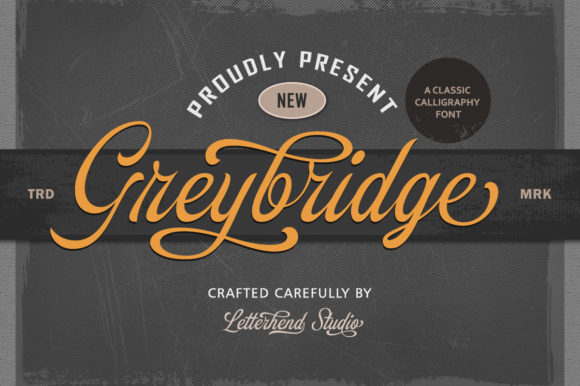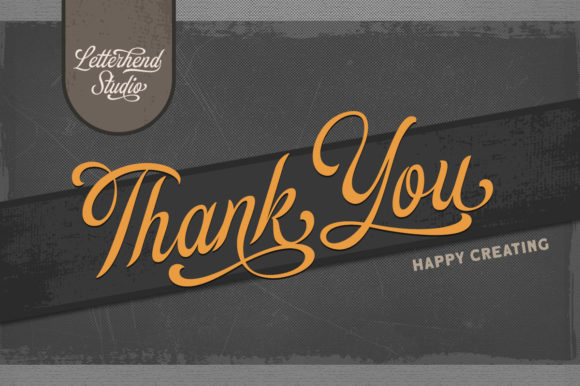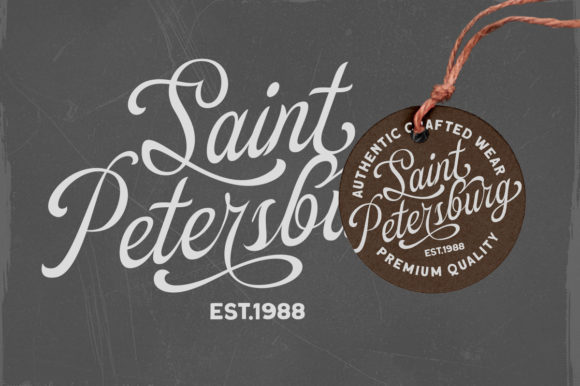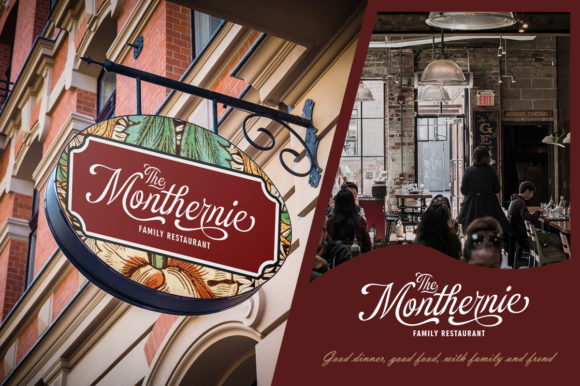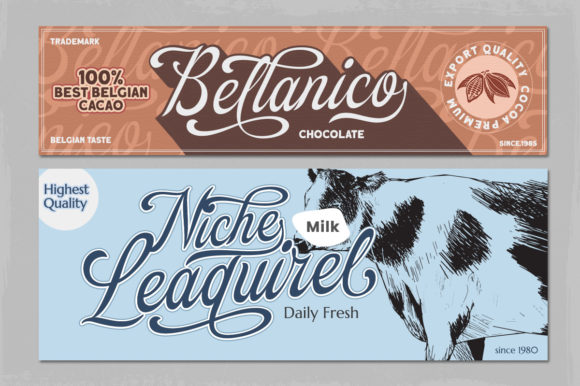
About Greybridge Font
Greybridge is a stunning vintage-inspired handwritten font that adds a touch of elegance and nostalgia to your designs. With its carefully crafted letterforms and charming imperfections, Greybridge is perfect for creating invitations, thank you cards, quotes, greeting cards, logos, business cards, and any other design that requires a handwritten touch.
The vintage style of Greybridge gives your designs a classic and timeless feel. It evokes a sense of nostalgia, reminiscent of handwritten letters and old-fashioned signage. The carefully designed curves and unique character shapes add an air of sophistication and elegance to your projects.
Whether you’re designing wedding invitations, creating personalized stationery, or adding a handwritten quote to a print or digital design, Greybridge brings a touch of warmth and personality. Its distinctive letterforms capture the essence of handwritten calligraphy, with a touch of vintage flair. Each letter is crafted with care, showcasing the beauty of traditional handwriting.
Greybridge’s versatility extends to various design applications. It adds a touch of authenticity and uniqueness to logos, giving your brand a distinct and memorable identity. It also works beautifully for business cards, adding a personal and handcrafted touch that sets your cards apart. The vintage-inspired aesthetic of Greybridge can even be used to create stylish and eye-catching social media graphics, blog headers, and more.
With Greybridge, you can transport your designs back in time, capturing the charm and elegance of vintage handwriting. Its versatility and timeless appeal make it a perfect choice for a wide range of projects, allowing you to infuse your designs with a touch of vintage sophistication. Embrace the beauty of Greybridge and let it elevate your invitations, cards, quotes, and logos to new heights of elegance and style.